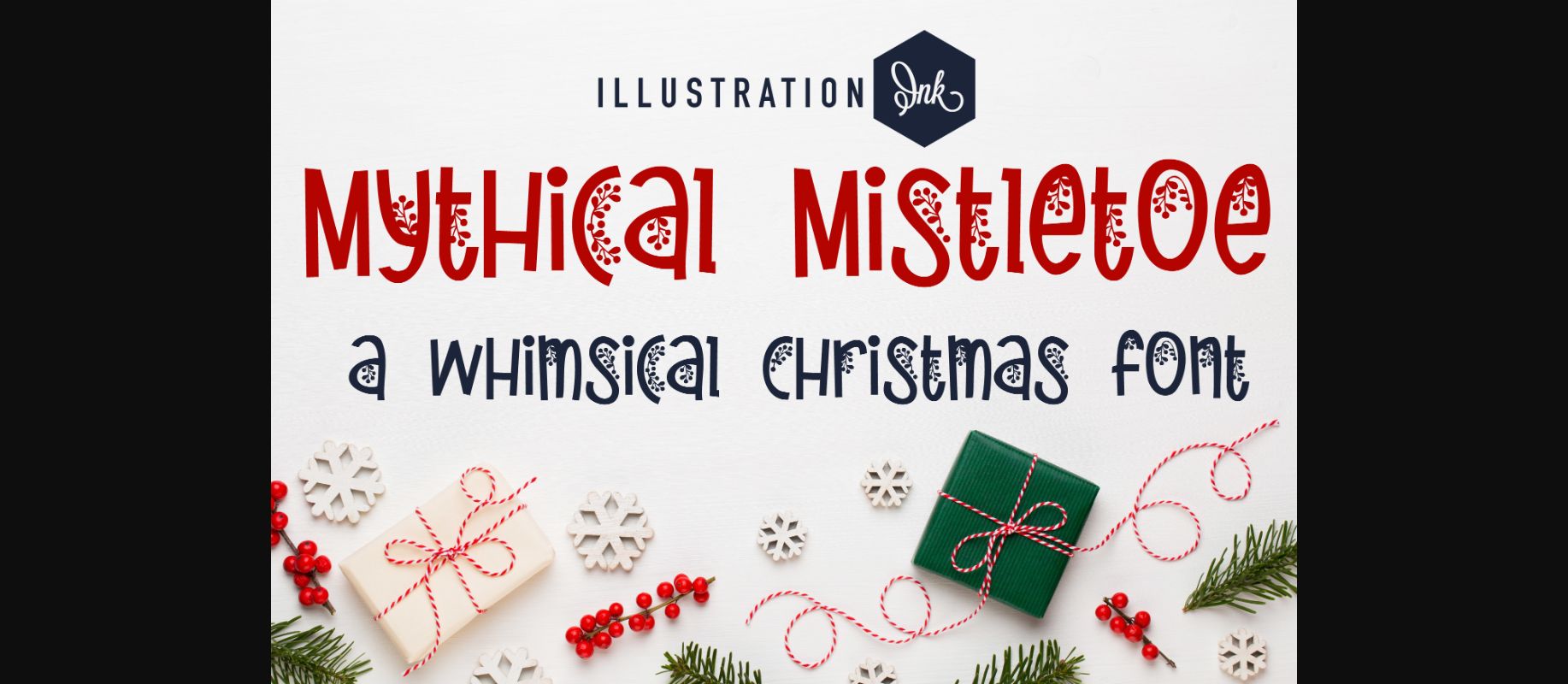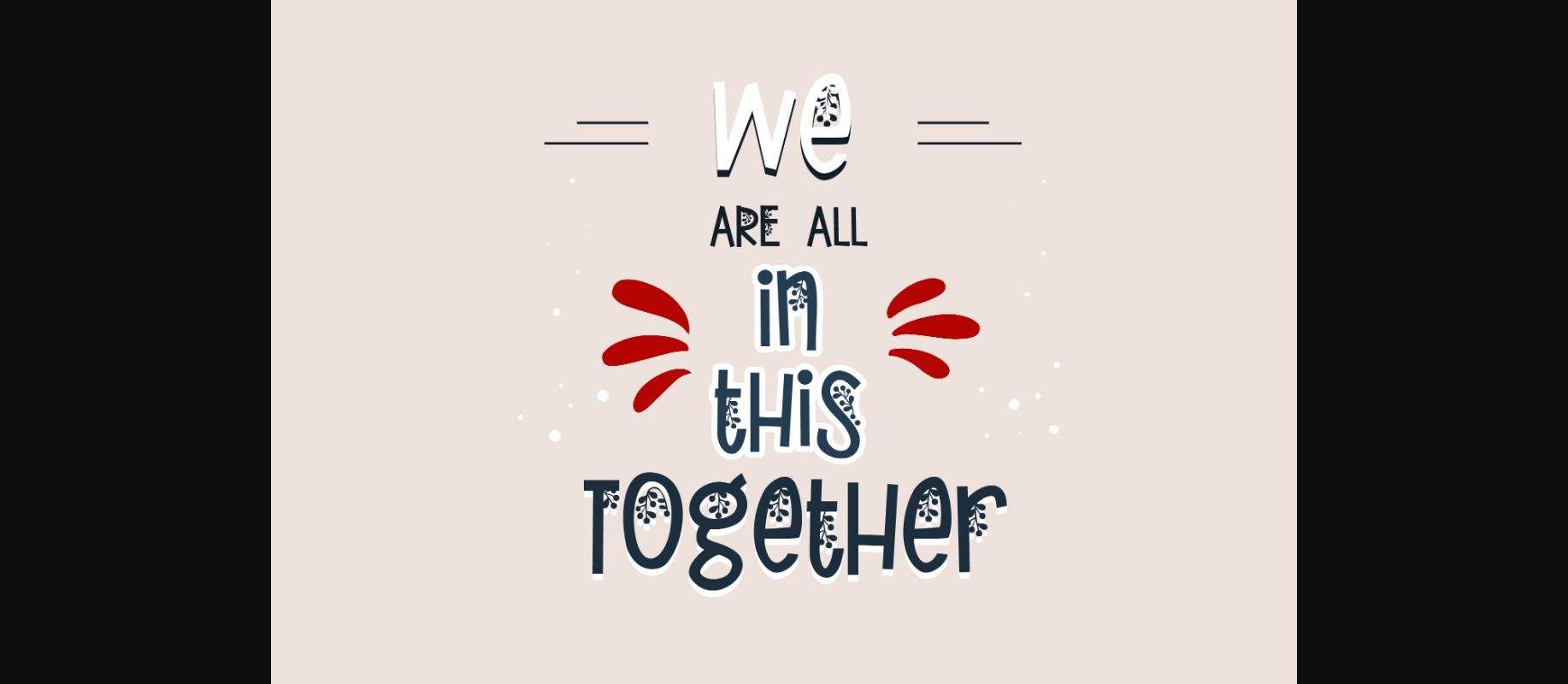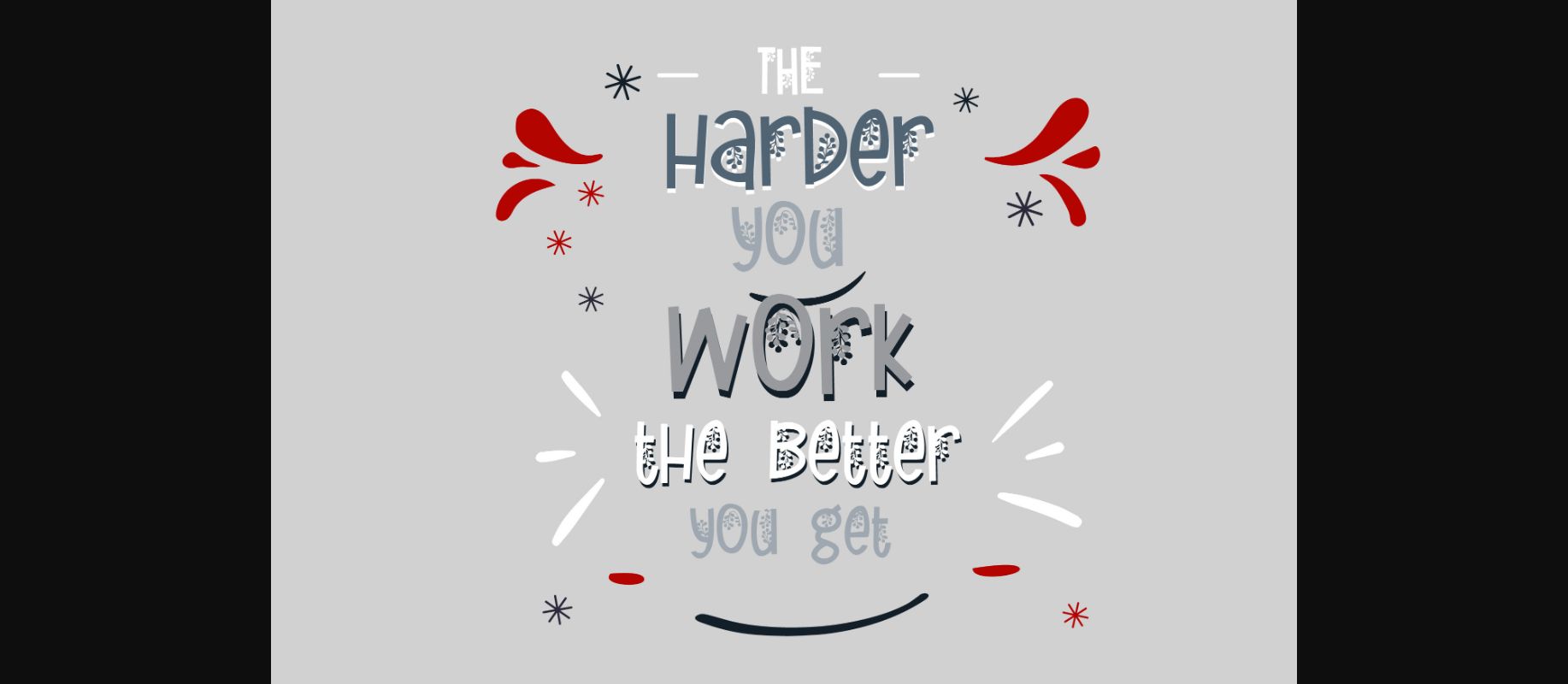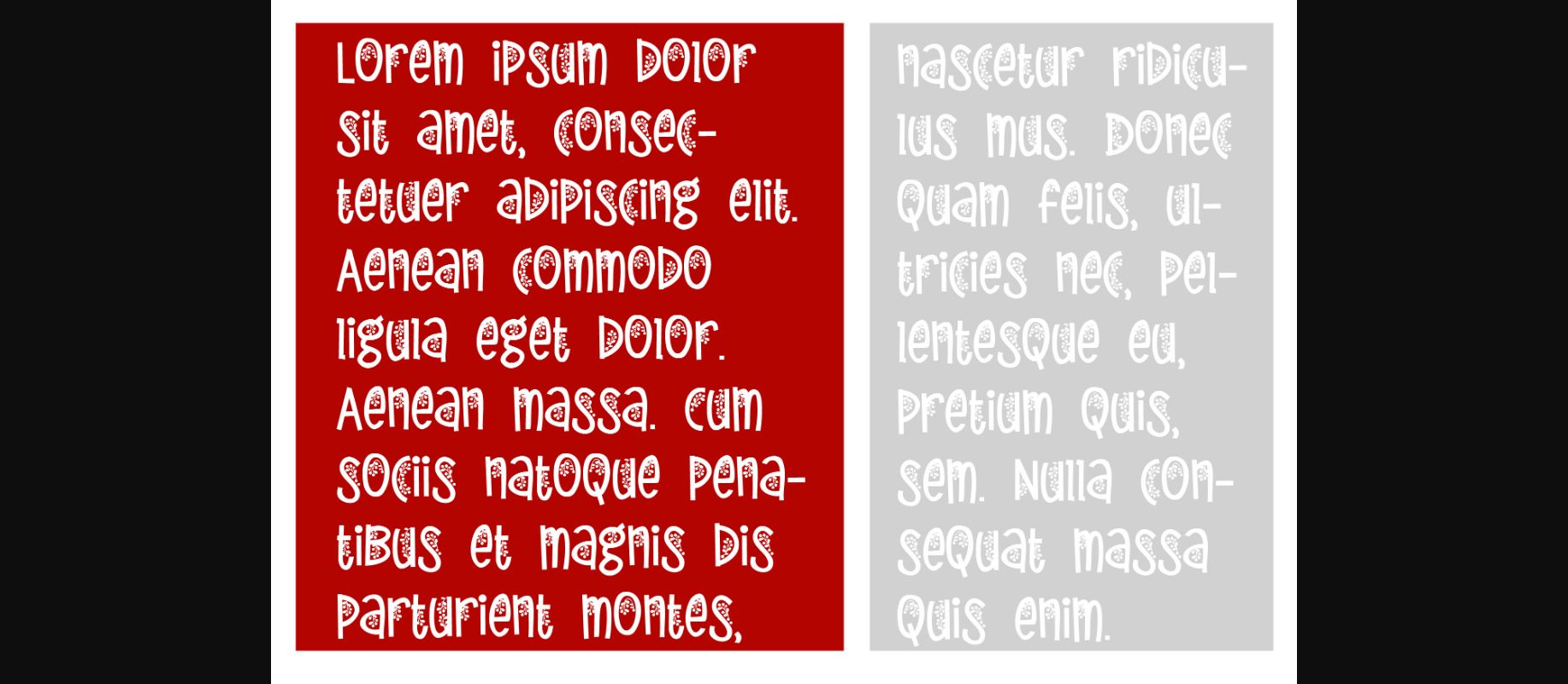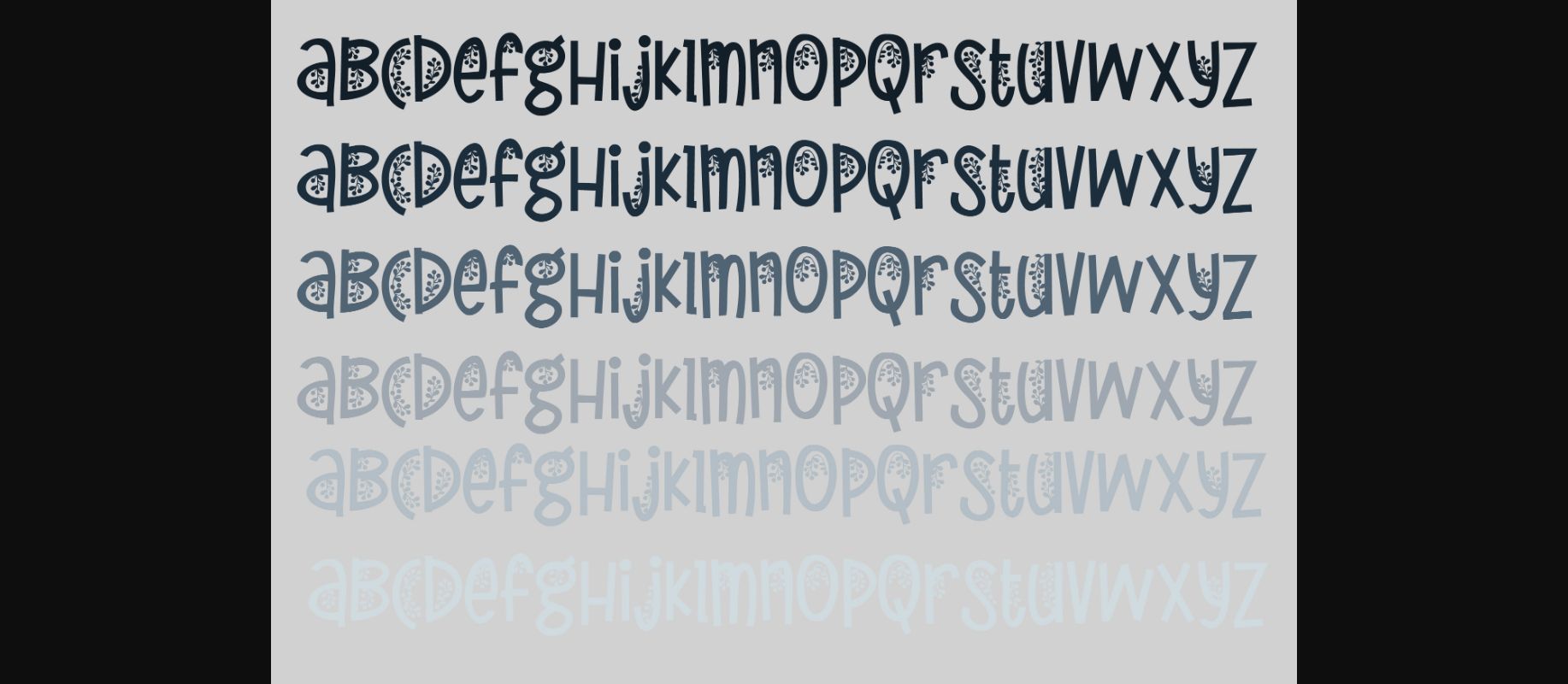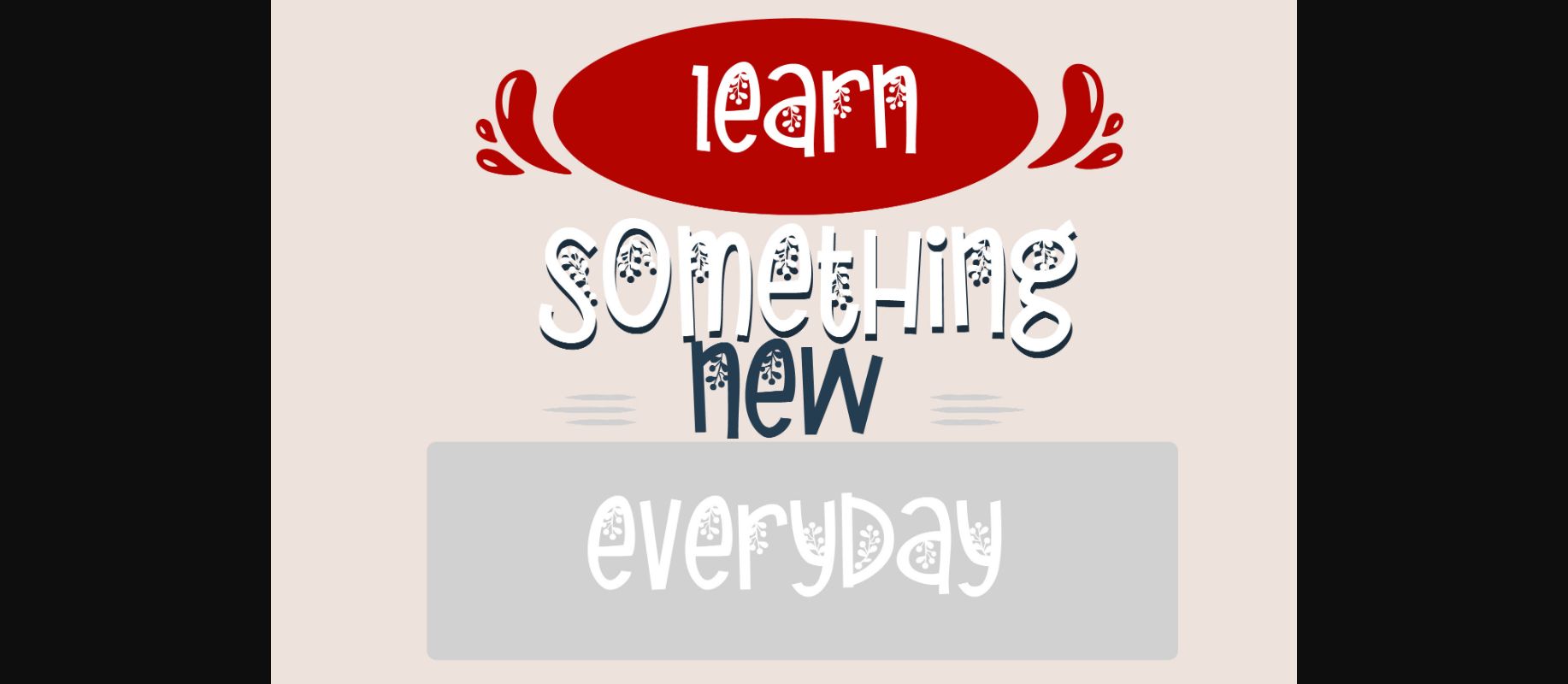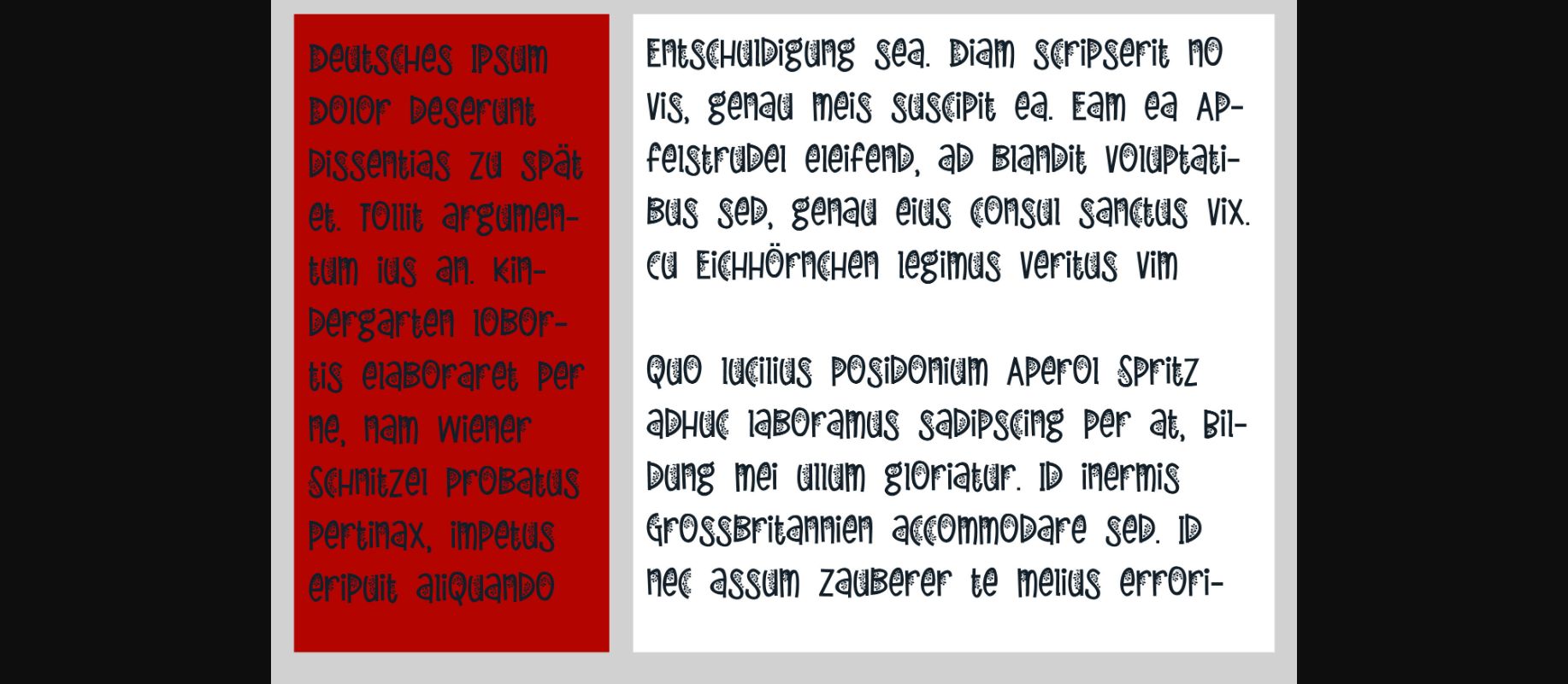
HomeDecorative FontsMythical Mistletoe Font Decorative Fonts Mythical Mistletoe Font FacebookXPinterestWhatsApp 1 of 9 ... Mythical Mistletoe Font Poster 2... Mythical Mistletoe Font Poster 3... Mythical Mistletoe Font Poster 4... Mythical Mistletoe Font Poster 5... Mythical Mistletoe Font Poster 6... Mythical Mistletoe Font Poster 7... Mythical Mistletoe Font Poster 8... Mythical Mistletoe Font Poster 9... About Mythical Mistletoe Font Mythical Mistletoe is a cute and adorable handwritten decorative font that features little berries and leaves. Add it confidently to your holiday projects and you will love the results! DOWNLOAD NOW People also explored Fox Paint Look Within Font Estz Font Back to School Font Ribbons Font Doggie Font Office Memorandum Javinka Font Ghost Strike Font 401 0 TagsMythical Mistletoe Font Previous articleMistletoe Show FontNext articlePeppermint Preserves Font LEAVE A REPLY Cancel reply Comment: Please enter your comment! Name:* Please enter your name here Email:* You have entered an incorrect email address! Please enter your email address here Website: Save my name, email, and website in this browser for the next time I comment. Personal Use Free Cheese Matcha Font Personal Use Free Read more about this font Lumber Personal Use Free Read more about this font Hair Thinned Personal Use Free Read more about this font DREXS Personal Use Free Read more about this font BLOG Fonts That Capture the Spirit of New York City New York City is more than just a place—it’s an experience, a rhythm, a visual language... Top 7 Google Fonts Alternatives for Faster and Privacy-Friendly Web Design (2025) Top 10 Handwritten Fonts That Elevate Your Designs How to Cut Any Font on Cricut: Convert a Font to SVG (Free)